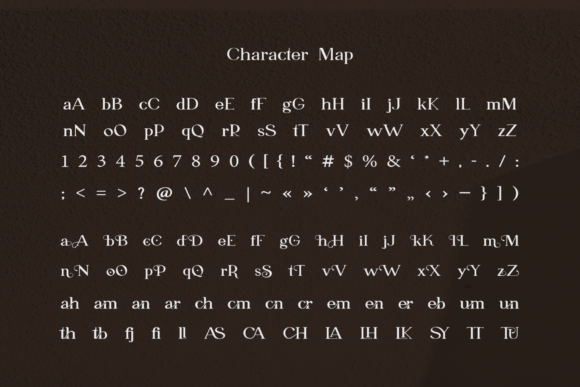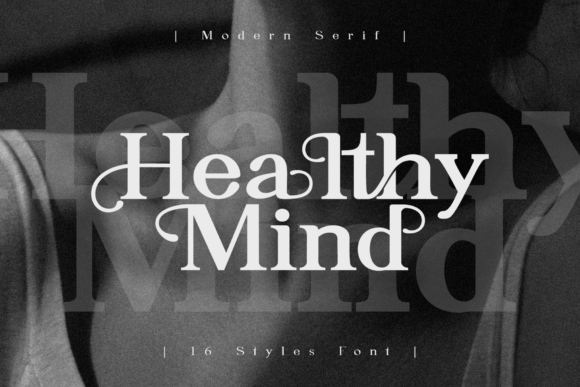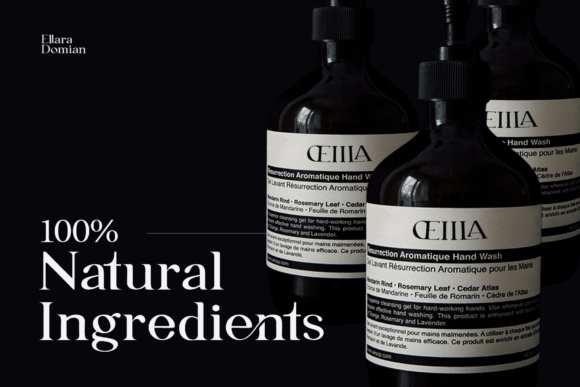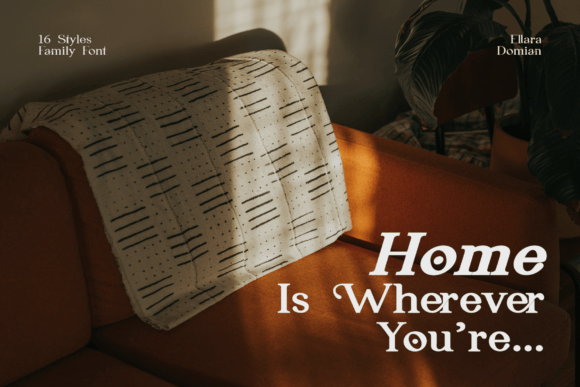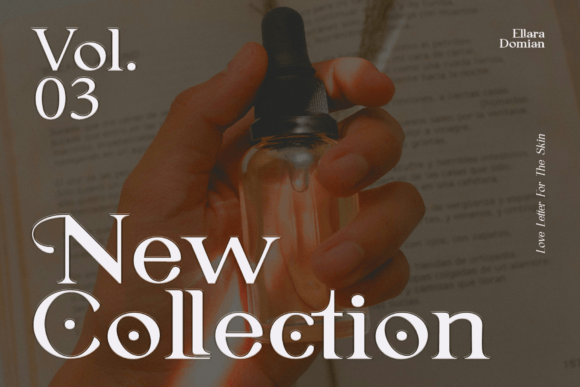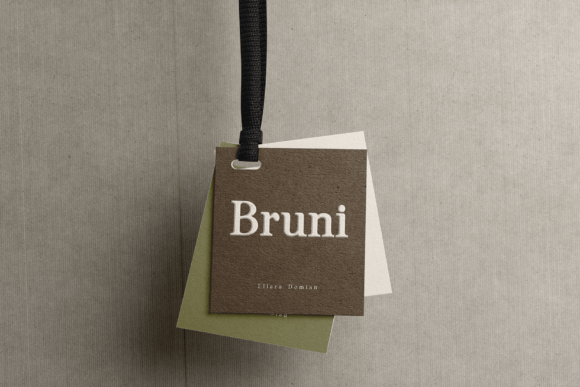
Ellara Domian Font: Elevate Your Designs with Refined Elegance
Are you a designer or crafter looking for a font that embodies sophistication and luxury? Look no further than the Ellara Domian font. This captivating serif font is designed to bring a touch of refined elegance and minimalist beauty to your projects. With its clean lines and understated sophistication, Ellara Domian is perfect for designs that require a sense of timeless appeal.
The Characteristics of Ellara Domian Font
Ellara Domian is a serif font that boasts a unique blend of classic and modern elements. Its clean lines and minimalist aesthetic make it an excellent choice for designs that require a touch of sophistication. The font’s understated elegance ensures that it won’t overpower your content, allowing your message to take center stage. Whether you’re working on a branding project, a website, or a craft, Ellara Domian is sure to elevate your design.
Why Choose Ellara Domian Font?
There are many reasons why Ellara Domian font stands out from the crowd. Here are a few:
- Refined Elegance: Ellara Domian exudes a sense of refined elegance that is perfect for high-end designs.
- Minimalist Beauty: The font’s clean lines and minimalist aesthetic make it a great choice for designs that require a touch of sophistication.
- Timeless Appeal: Ellara Domian has a timeless quality that ensures your designs will remain relevant for years to come.
- Versatility: The font is versatile and can be used for a wide range of projects, from branding and advertising to web design and crafting.
Using Ellara Domian Font in Your Designs
Ellara Domian font can be used in a variety of design projects, including:
- Branding and Logo Design: The font’s elegant and sophisticated aesthetic makes it perfect for logos and branding projects.
- Web Design: Ellara Domian can be used to create stunning website headers, titles, and body text.
- Advertising and Marketing: The font’s refined elegance and timeless appeal make it a great choice for advertising and marketing materials.
- Crafting and DIY Projects: Ellara Domian can be used to add a touch of sophistication to crafting and DIY projects, such as papercrafting, card making, and journaling.
Tips for Getting the Most Out of Ellara Domian Font
Here are a few tips for getting the most out of Ellara Domian font:
- Use it as a Headline Font: Ellara Domian is perfect for headlines and titles, where its elegant and sophisticated aesthetic can shine.
- Pair it with Other Fonts: The font can be paired with other fonts to create a unique and visually appealing design.
In conclusion, Ellara Domian font is a captivating serif font that exudes refined elegance and minimalist beauty. Its clean lines and understated sophistication make it perfect for projects that require a touch of luxury and timeless appeal. Whether you’re a designer or crafter, Ellara Domian is sure to elevate your designs and add a touch of sophistication to your work.